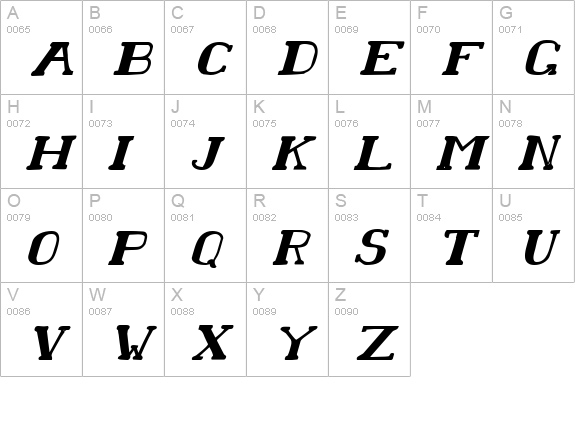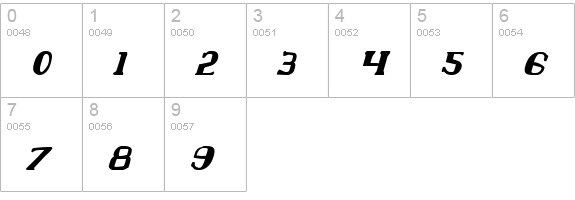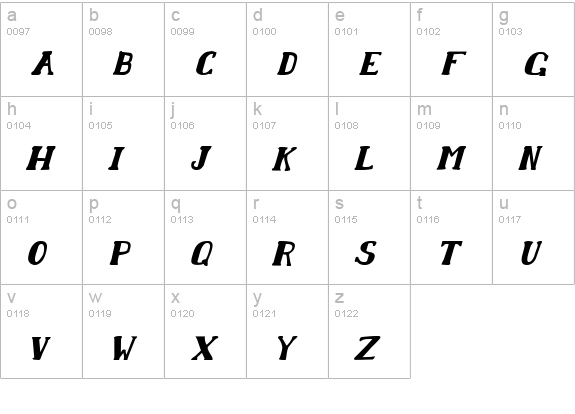
Chardin Doihle Bold Italic is a strong, high-contrast, italic variant in the Chardin typeface family \xE2\x80\x94 well suited to headlines, attention-grabbing titles, and strong calls-to-action.
Chardin Doihle Bold Italic is a striking and modern typeface that exudes confidence and sophistication. With its bold strokes and elegant italics, this font is perfect for creating eye-catching designs that demand attention. The combination of strong lines and graceful curves gives Chardin Doihle Bold Italic a unique and dynamic look that is sure to make a statement. The best part? Chardin Doihle Bold Italic is completely free to download at FontsMarket.com! Whether you're working on a branding project, creating promotional materials, or designing a website, this font will add a touch of style and professionalism to your work. Don't miss out on this fantastic opportunity to enhance your designs with the bold and beautiful Chardin Doihle Bold Italic font. Download it for free today and take your design projects to the next level!